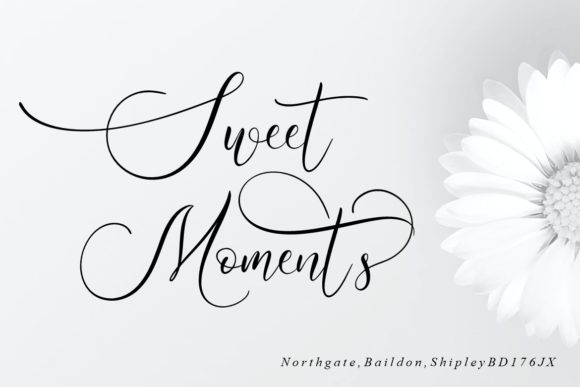
Wellstone Font
db-ku.com - Script & Handwritten -- Wellstone is a beautiful script font that exudes elegance and luxury. This font is specially crafted for those who need a beautiful and refreshing look to their designs.